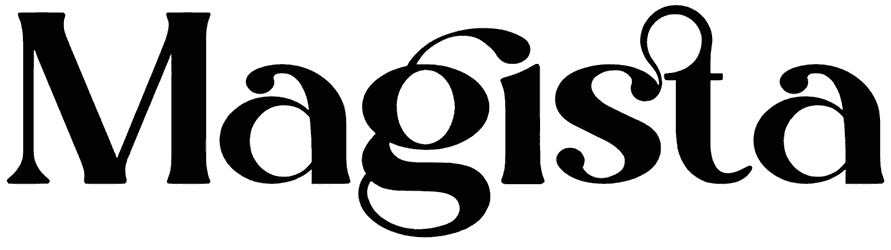
Magista Font
If you’re looking for a font that’s always in fashion and inspired by simplicity communities, we recommend Magista. Both styles of this serif font can elevate your writing to higher levels quickly, bringing you a simple yet impressive atmosphere.
So if you still need to choose a font for your new book cover or you’re looking for an effective font for your social poster, both Magista styles can help you look brighter than your previous work.